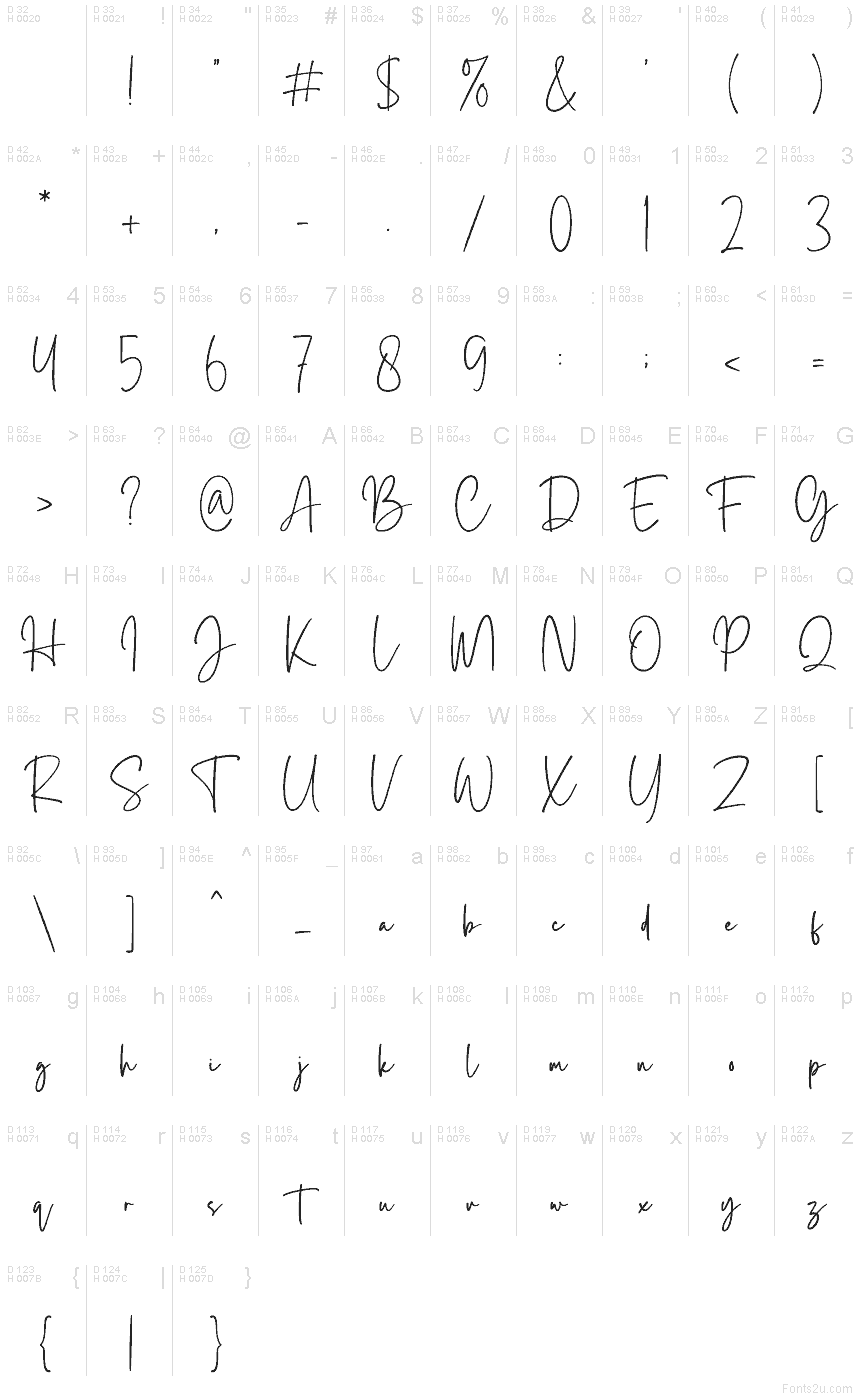
Bellysta
Bellysta font is a light handwritten style created by RantautypeStudio. Flourished and elegant with modern script elements, Bellysta carries a sophisticated aesthetic. The flowing, freeform serif design adds character to this beautiful display font, making it ideal for contemporary branding.
Bellysta offers a free solution in various projects including magazine covers, social media branding, blog titles, invitations, wedding card designs, logotypes and much more.